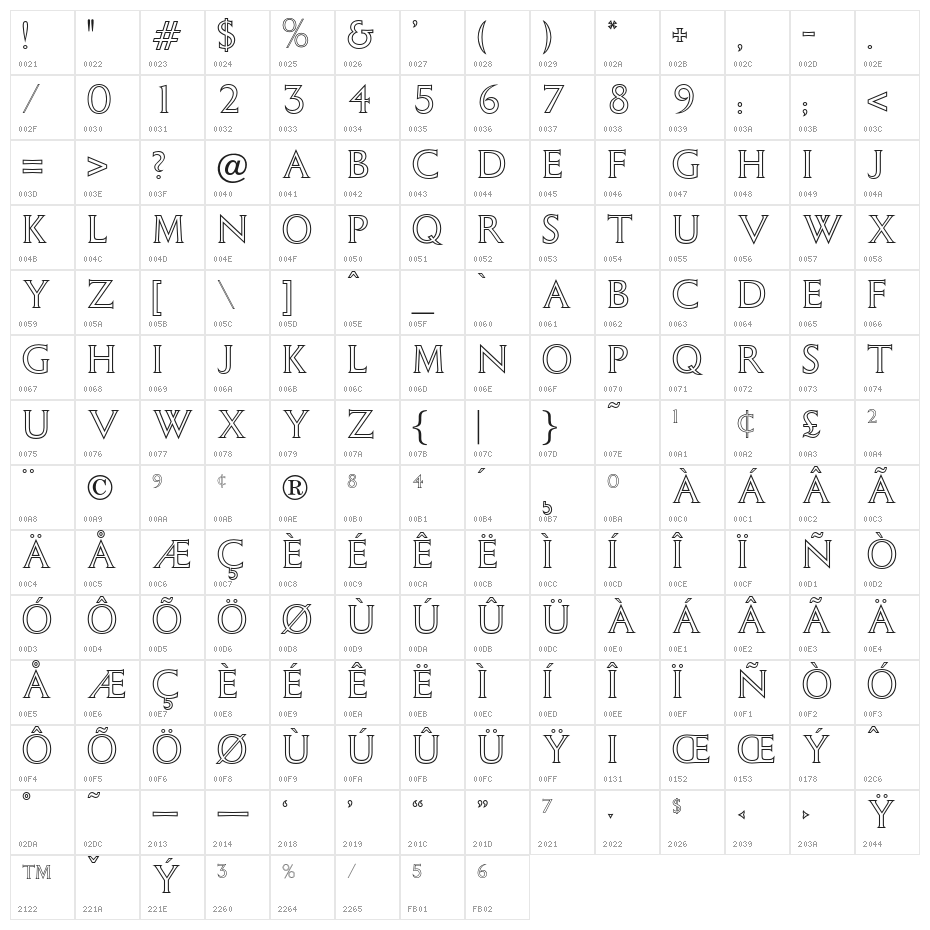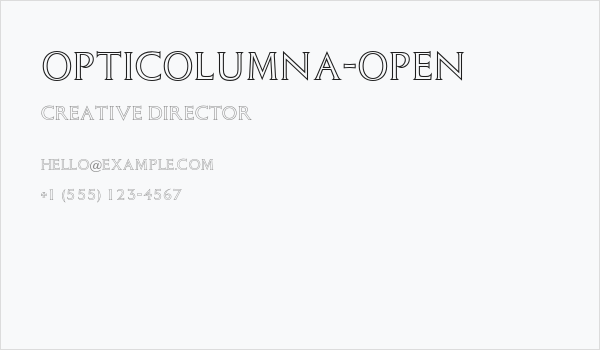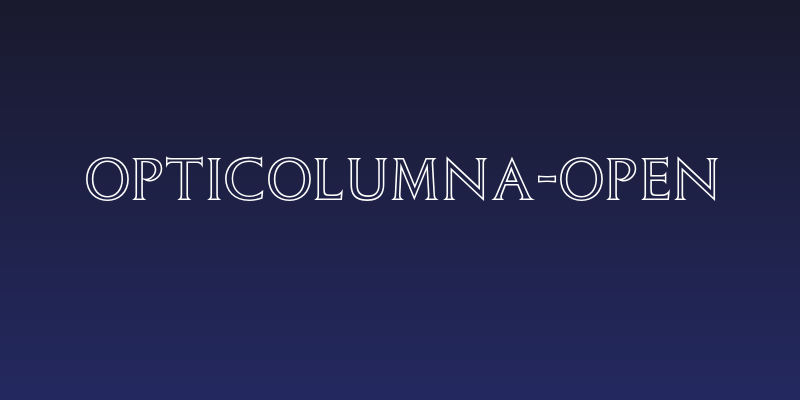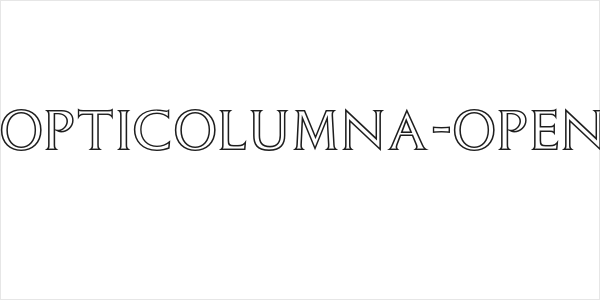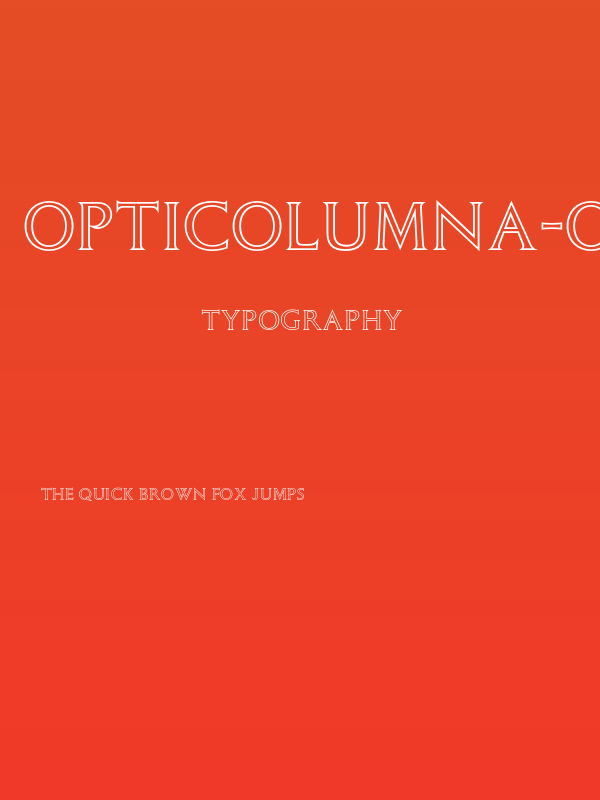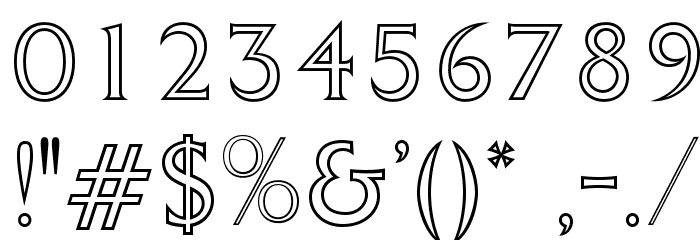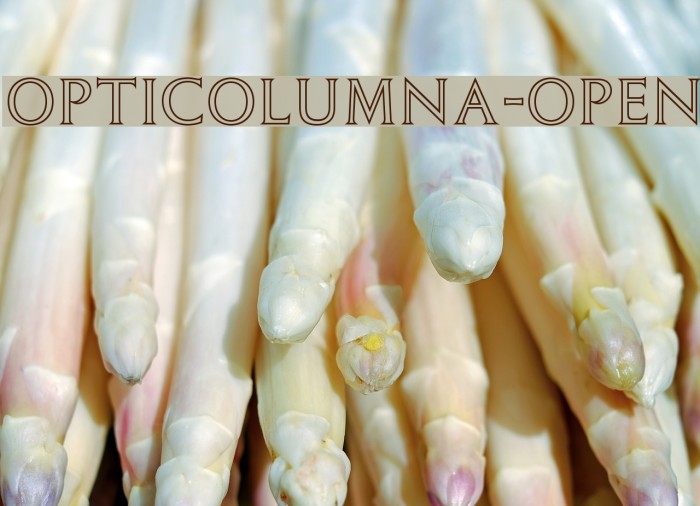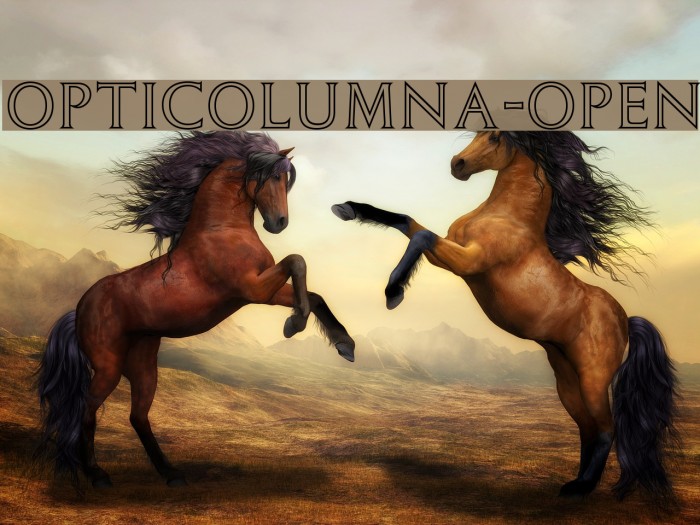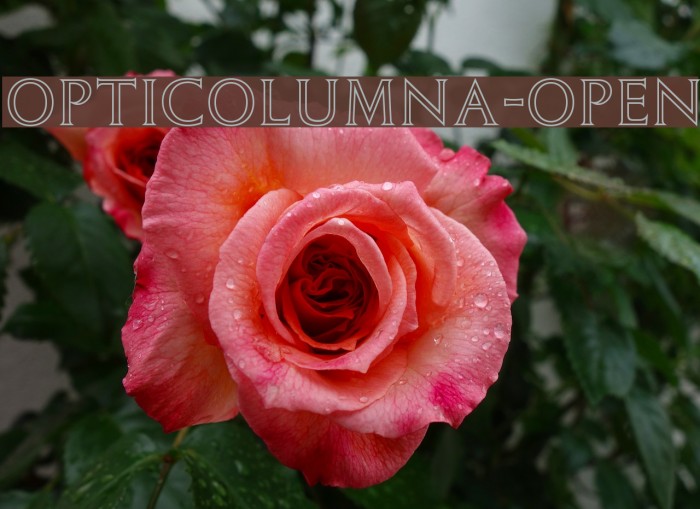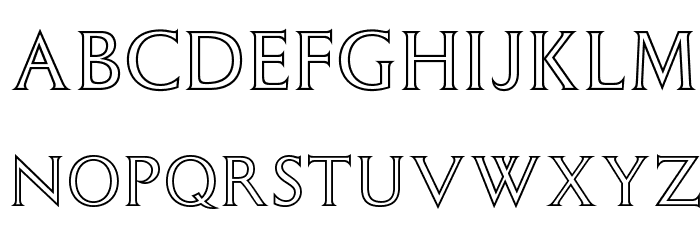
OPTIColumna-Open Font
OPTIColumna-Open Description
This font features a classic serif style with a modern twist, characterized by its elegant and refined lines. The letters are outlined, creating a sophisticated and airy appearance. The uppercase and lowercase letters maintain a consistent style, with sharp serifs and a balanced proportion. The numerals are distinct and easy to read, while the special characters complement the overall design. This font is versatile, suitable for both formal and creative projects, offering a timeless appeal with a contemporary edge.
| Overall Style | Classic |
| Use Case | Headlines, Logos, Invitations |
| Proposed Projects | Ideal for branding, editorial design, invitations, and luxury product packaging. |